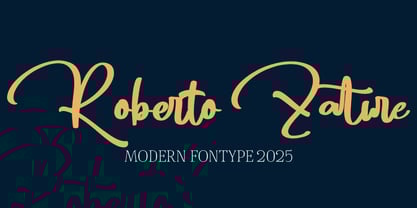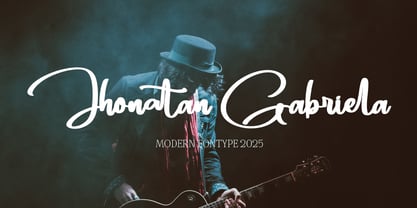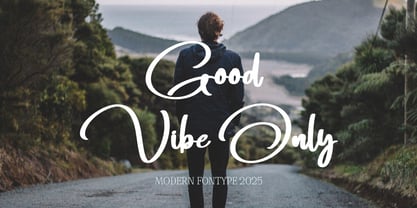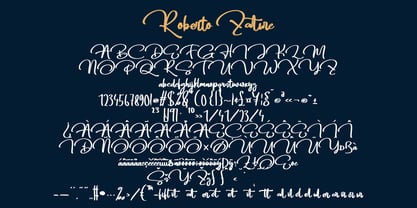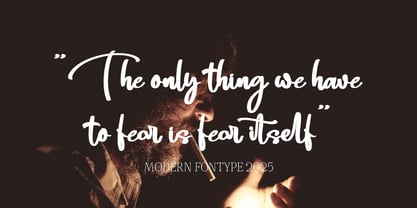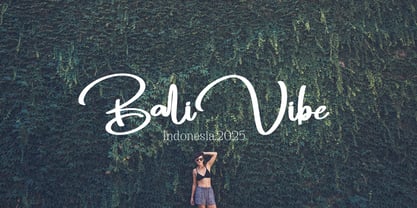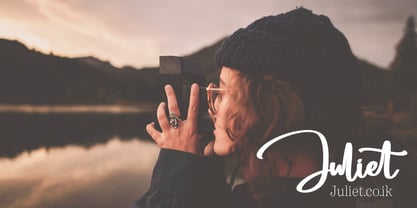
Roberto Zature
by Naatypo
The Roberto Zature Font Family was designed by Kurnia Elis Setyorini and published by Naatypo. Roberto Zature contains 1 styles. More about this family
Roberto Zature comes with Rough and Stamp style. You can use this font for every project. Suitable for branding logo, hand lettering, or apparel design. Combining Vintage and Modern With its blend of classic sans serif aesthetics and rough stamp grunge effects, This font seamlessly merges vintage charm with modern design sensibilities. The result is a font that exudes nostalgic elegance with a contemporary twist.
Designers: Kurnia Elis Setyorini
Foundry: Naatypo